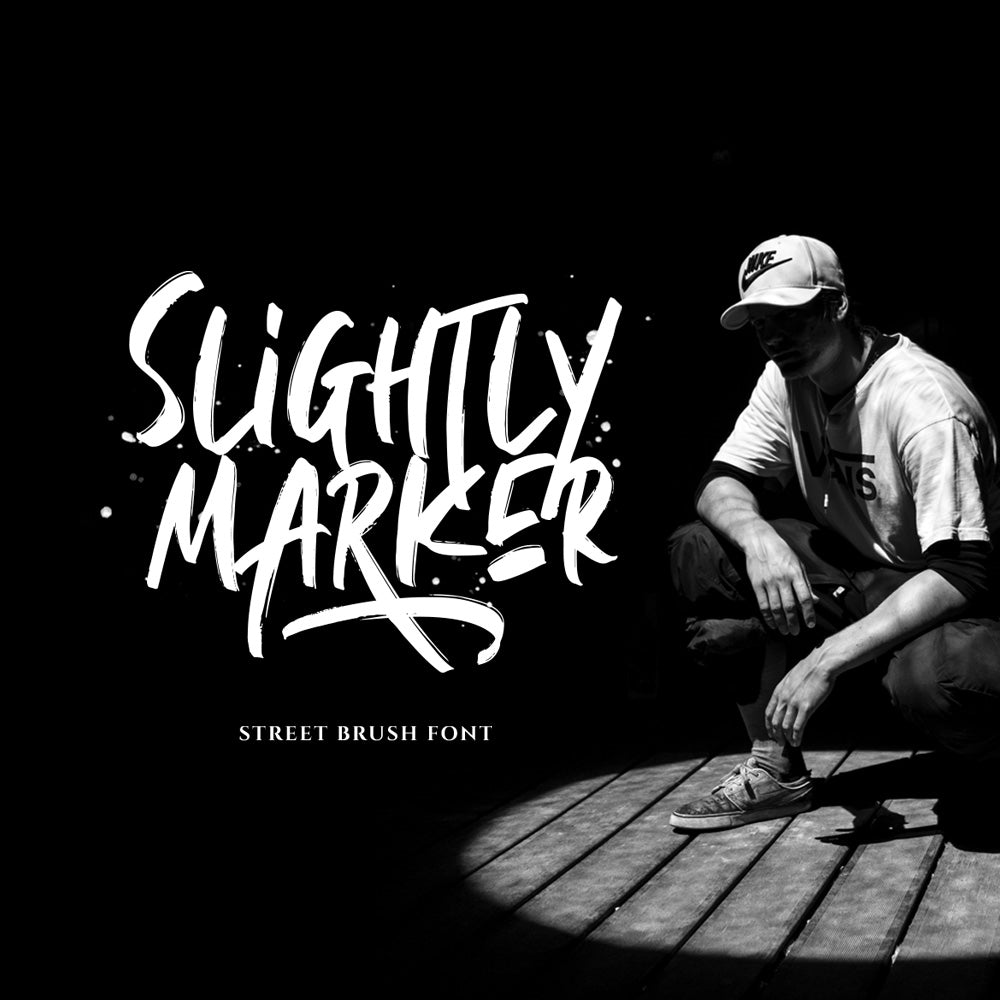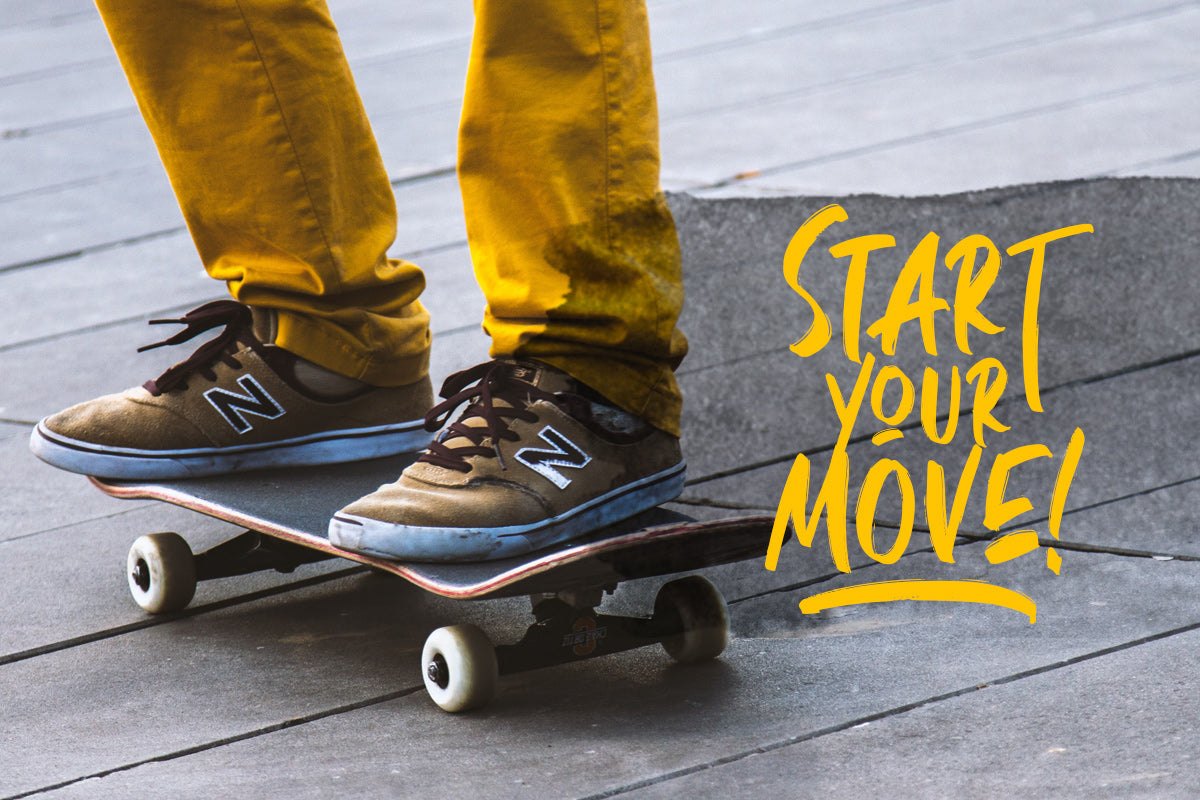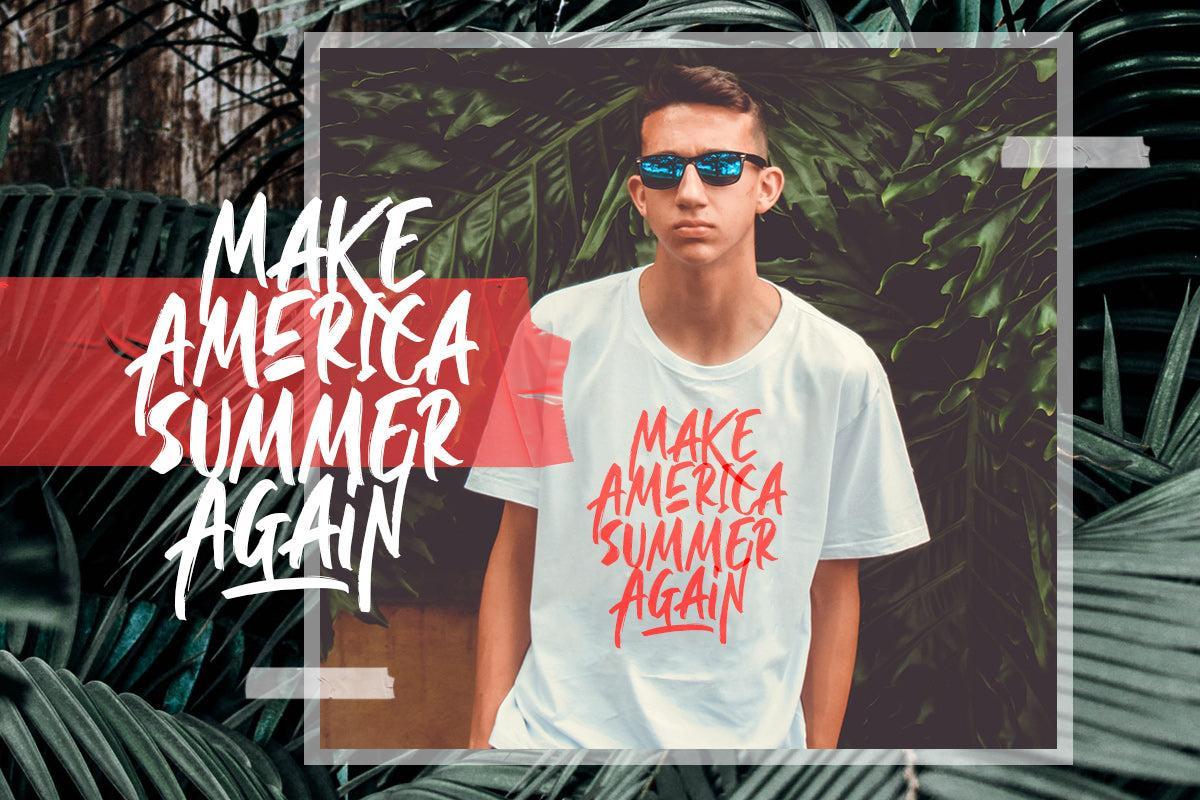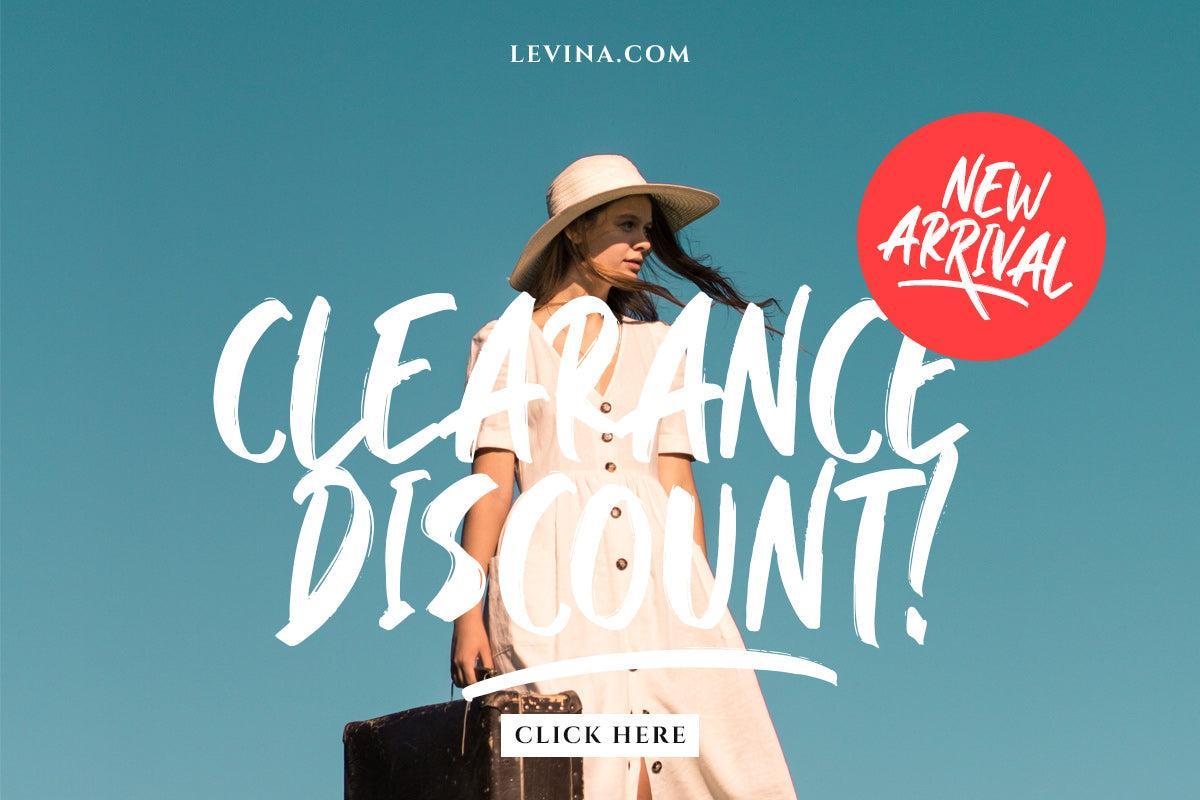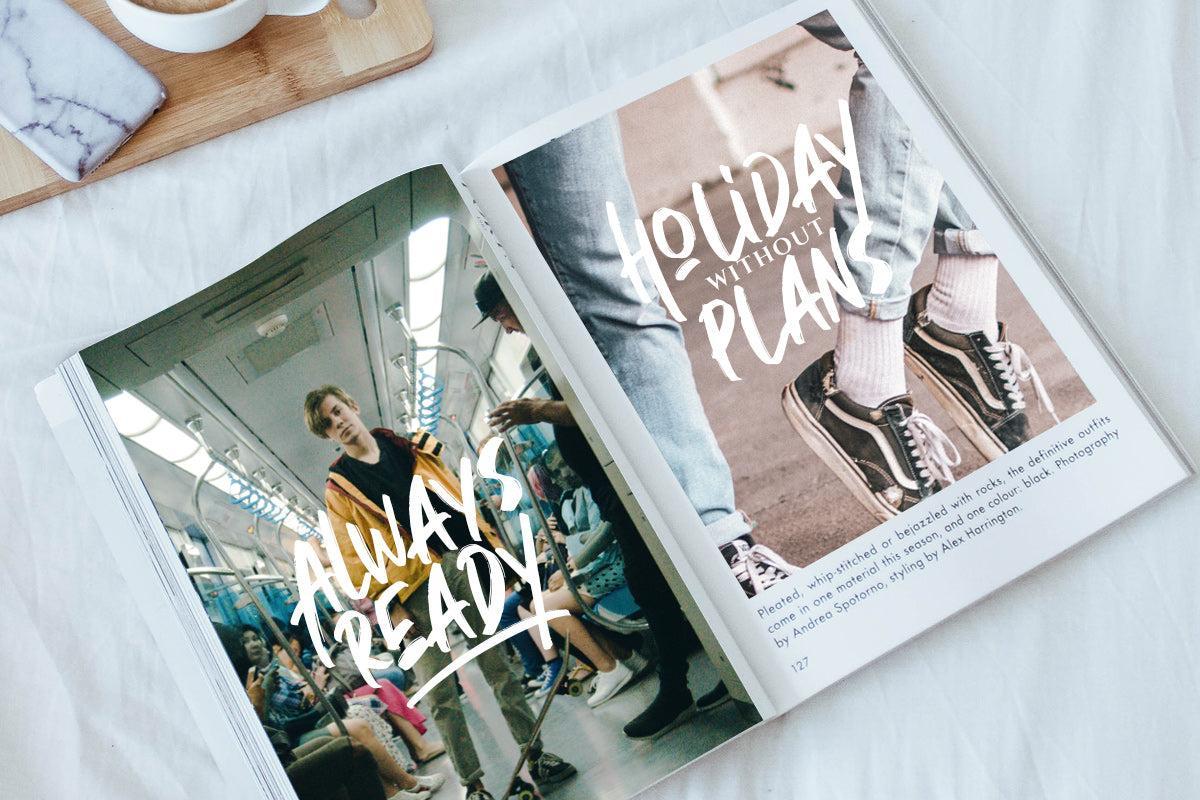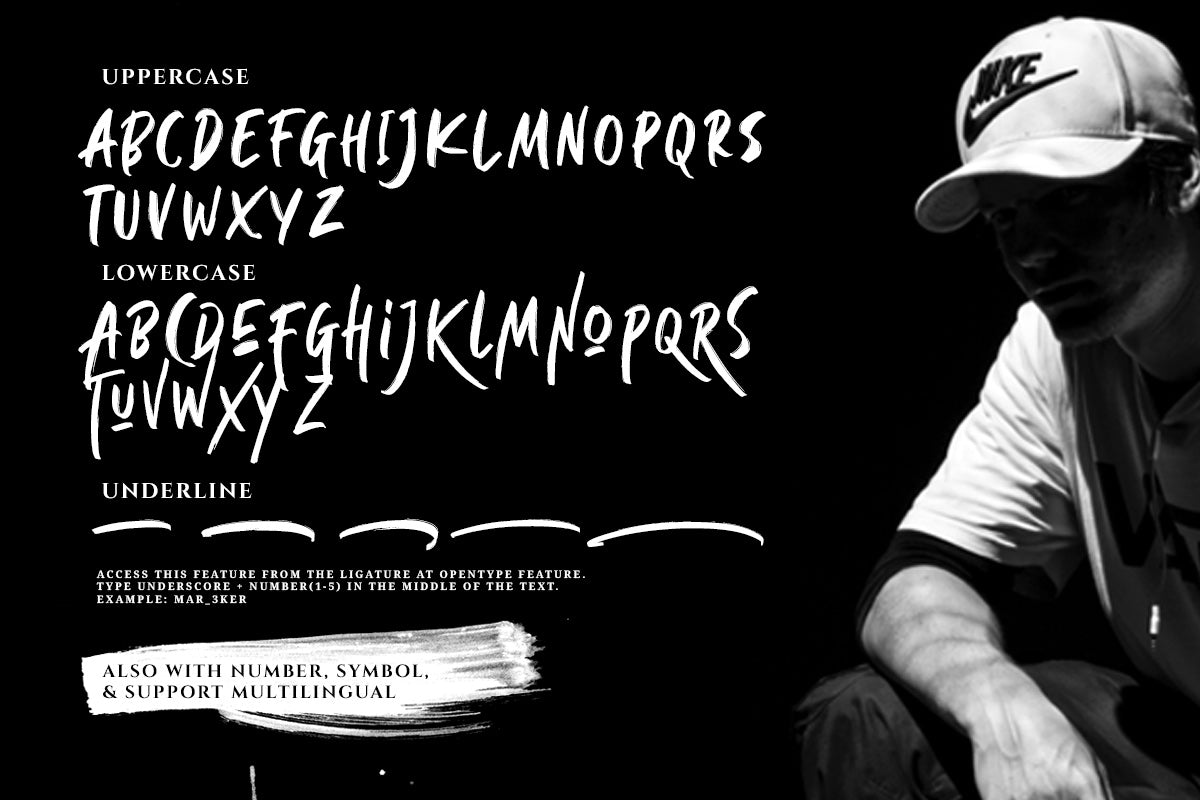
Slightly Marker - Brush Font
Slightly Marker - Brush Font is a caps font featuring a street style brush design, offering both uppercase and lowercase letters, numbers, symbols, and multilingual support. It includes OpenType features for adding underlines to words using ligatures, accessible by typing an underscore followed by a number (1-5).